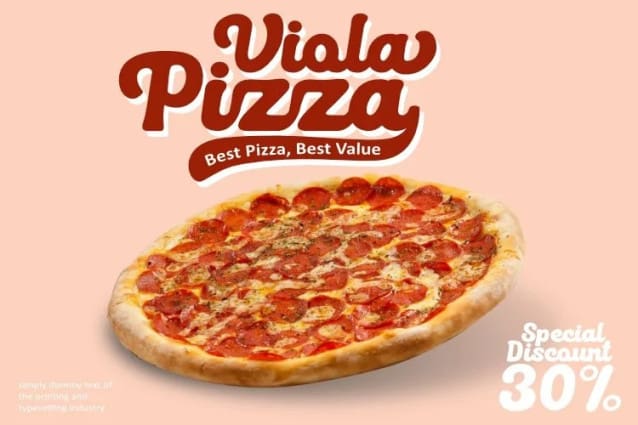
Retro Beach Font
Retro Beach Font, It is perfect for branding,logo, every other design which needs a Dsiplay. Please download and enjoy, thank you, and don’t forget to check out our other products.